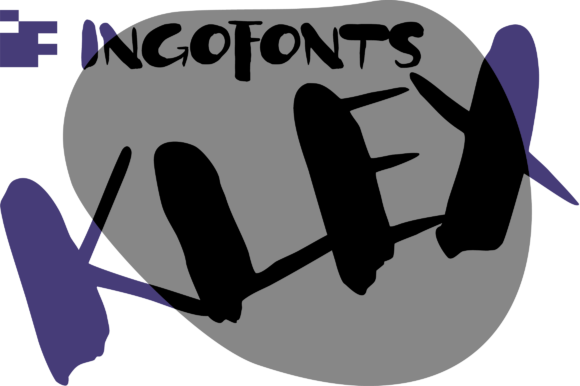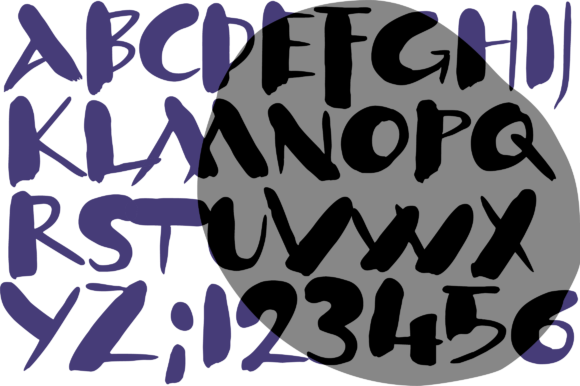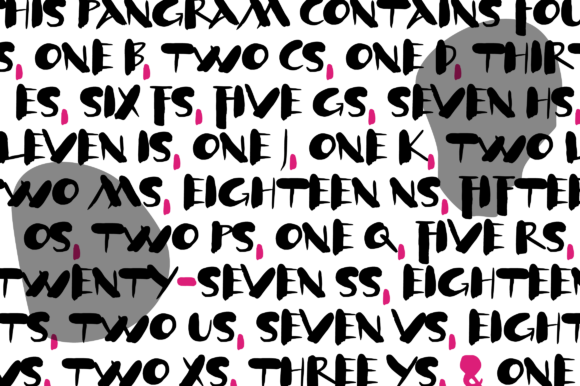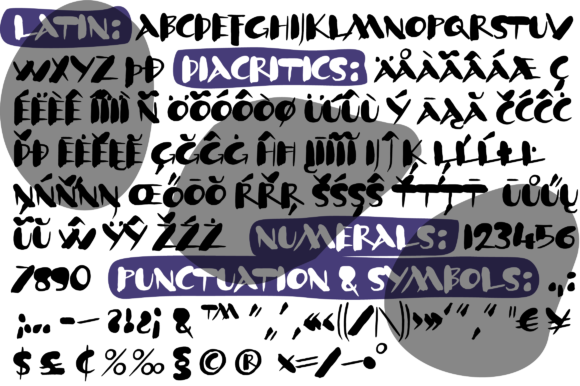
Klex Plus Font
About Klex Plus Font
Klex Plus is thick and bold handwritten font with a rough twist. It will easily turn any design idea into an eye catcher!